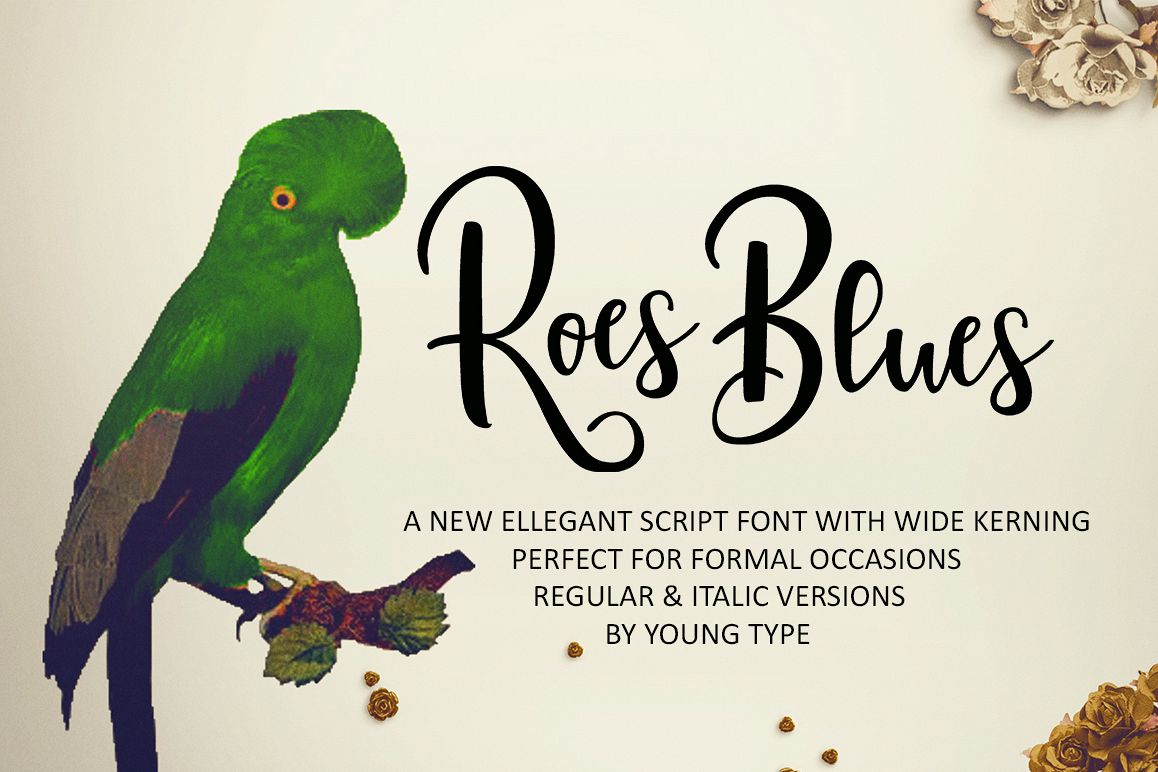
Roes Blues Script
Roesblues Script
NEW ! Roes Blues Script Font. It's an modern typeface with a tasty flow. Roes Blues Script features alternate characters, including initial,& end swashes terminal, ligatures and International support for most Western Languages is included.This one should make your designs instantly professional and jaw-dropping! Be a perfect professional in a minute and start creating modern designs like ads, sales, logos, branding, posters, social media text overlays today!To enable the OpenType Stylistic alternates, you need a program that supports OpenType features such as Adobe Illustrator CS, Adobe Indesign & CorelDraw X6-X7, Microsoft Word 2010 or later versions. and there are additional ways to access alternates/swashes, using Character Map (Windows), Nexus Font (Windows), Font Book (Mac) or a software program such as PopChar (for Windows and Mac).How to access all alternative characters using Adobe Illustrator: